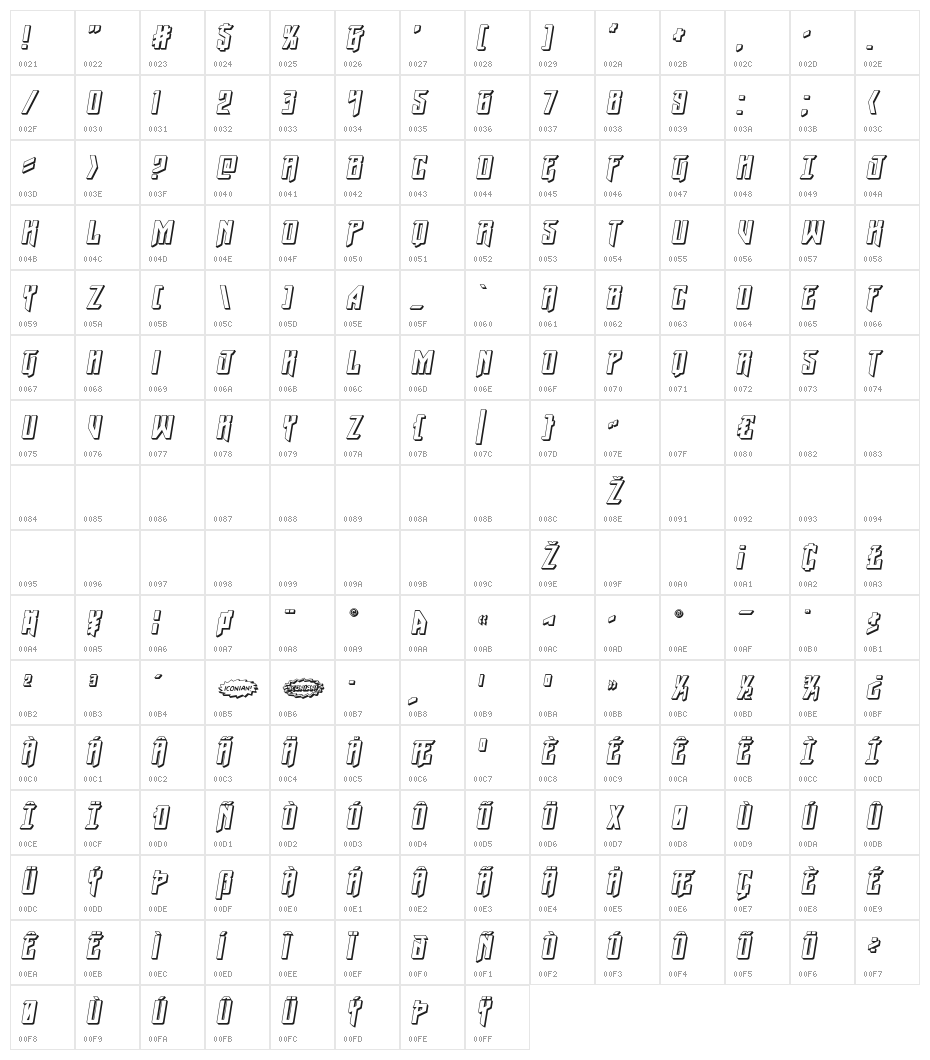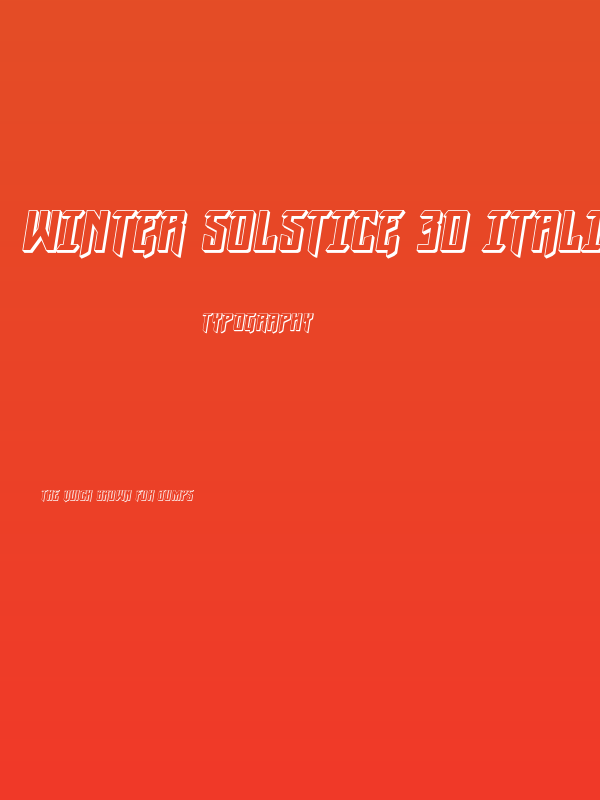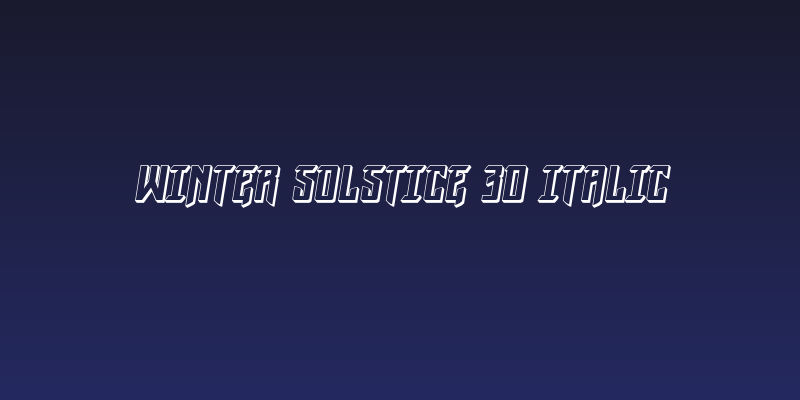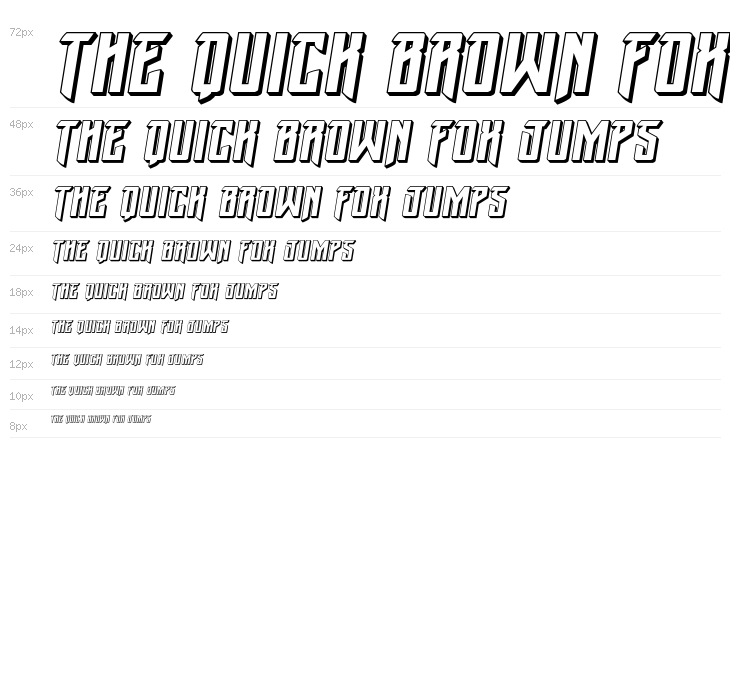
Winter Solstice 3D Italic Font
Winter Solstice 3D Italic Description
This font features a bold, 3D italic style with sharp, angular edges that give it a dynamic and futuristic appearance. The letters are designed with a shadow effect, enhancing the three-dimensional look. The uppercase and lowercase characters maintain a consistent style, with a slight slant that adds to the italicized effect. The numerals and special characters follow the same design principles, ensuring uniformity across all glyphs. This font's boldness and unique style make it stand out, suitable for eye-catching designs.
| Proposed Projects | Ideal for video game titles, posters, logos, and any project requiring a futuristic or edgy look. |